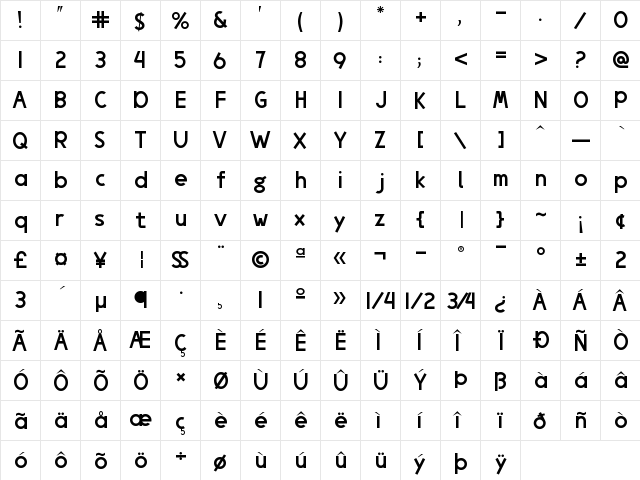
Egmont Text Regular
Design Context for Egmont Text Typeface
Egmont Text is a composed and adaptable typeface that performs quietly and consistently across a wide range of design contexts.